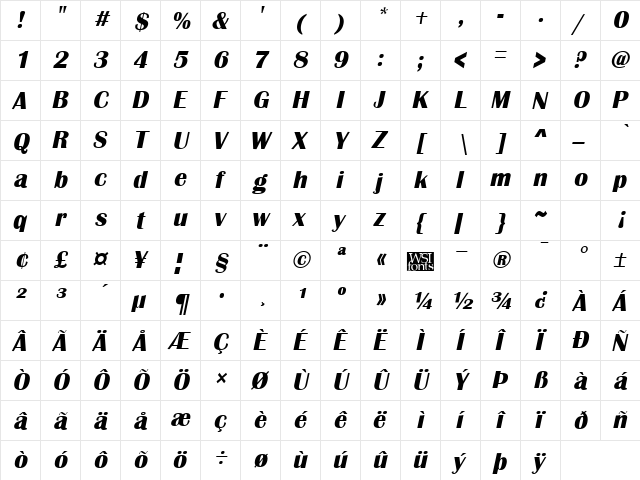
Scotsdale Italic
Design Context for Scotsdale Typeface
Scotsdale offers clean, dependable letterforms without strong stylistic allegiance, making it a practical choice for designers who need flexibility. The slanted form adds forward momentum and visual energy.